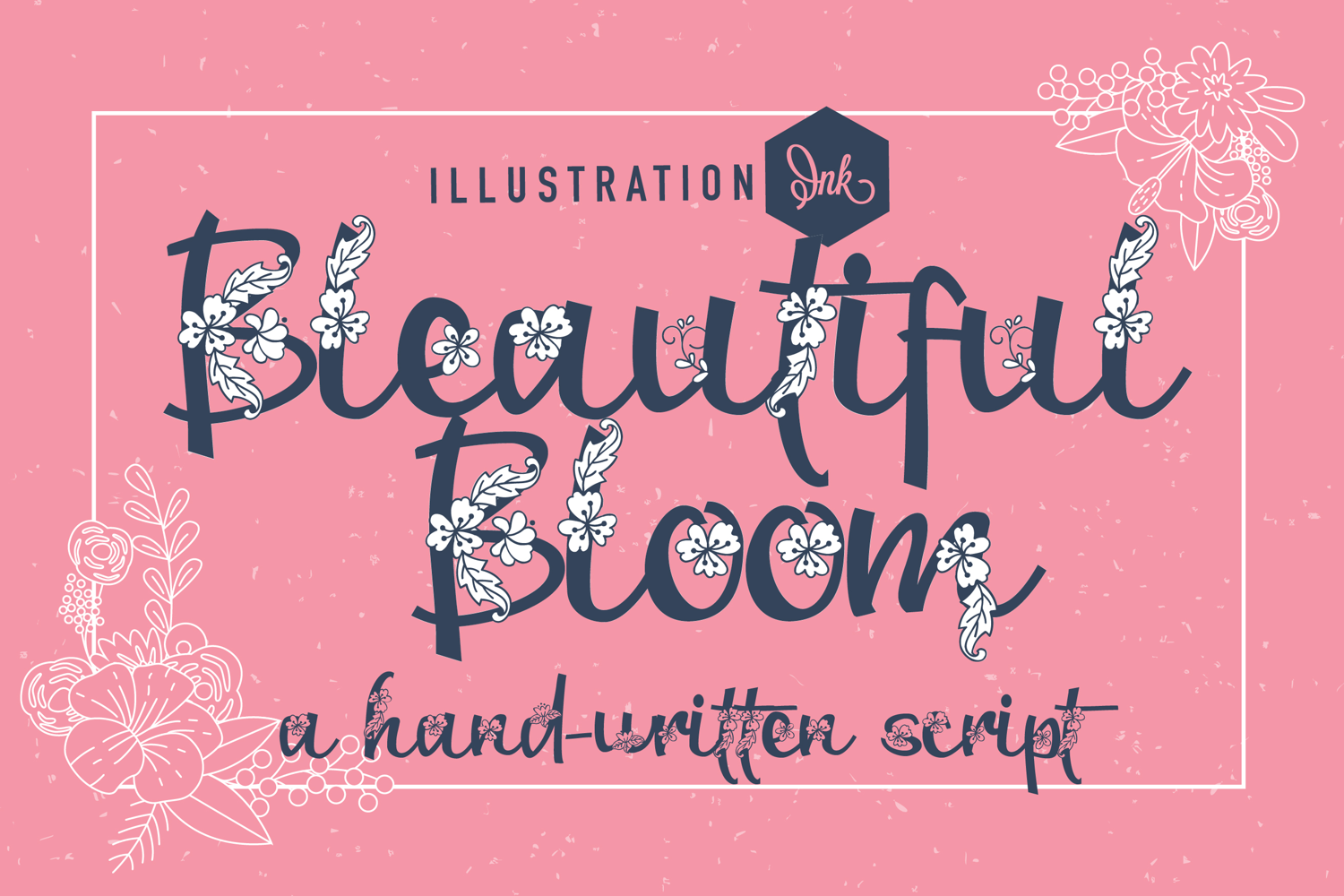
Bleautiful Bloom Font Family
This hand-crafted font is a pretty, hand-written script font sporting florals with 12 variations.
• The letters are not perfectly uniform in size or shape.
• There may be slight variations in the spacing between letters and words.
• The font may have a "wiggly" or "squiggly" appearance.
• The font may be difficult to read at small sizes.